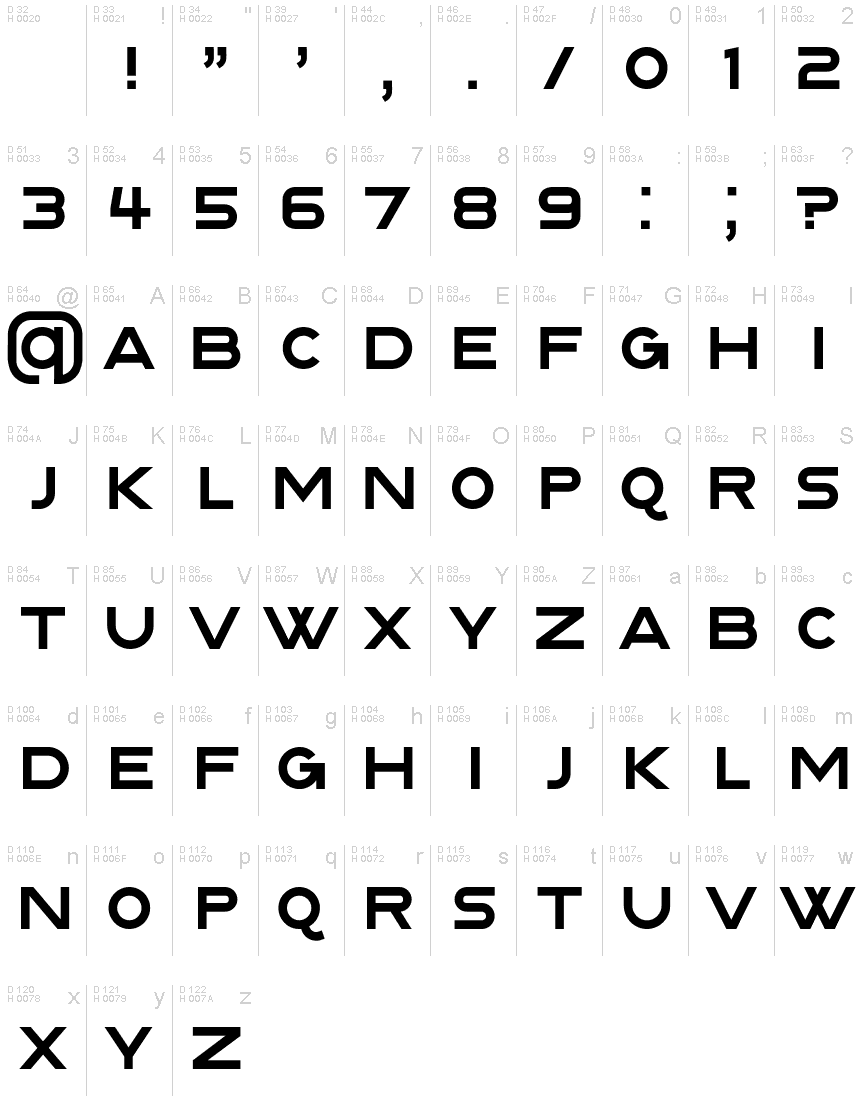
Burial Regular
Burial, a bold and dynamic sans serif font designed by Vladimir Nikolic, is the perfect choice for projects that require a strong and impactful visual presence. Its extra-expanded width gives it an edgy and modern feel that can add depth to any design. Burial's clean lines and geometric shapes make it suitable for a range of applications, from branding materials to editorial layouts. This versatile typeface is well-suited for display text in posters, headlines, packaging designs or social media graphics. Embrace the power of Burial and elevate your project with its unique style.